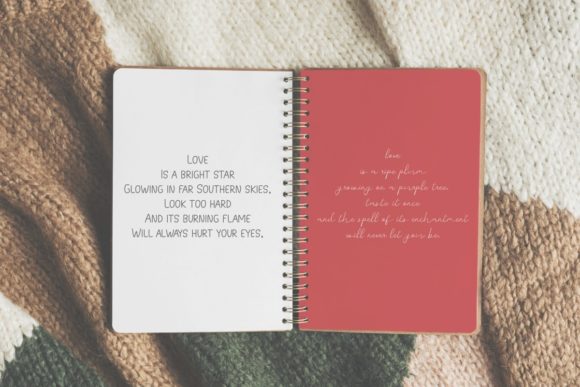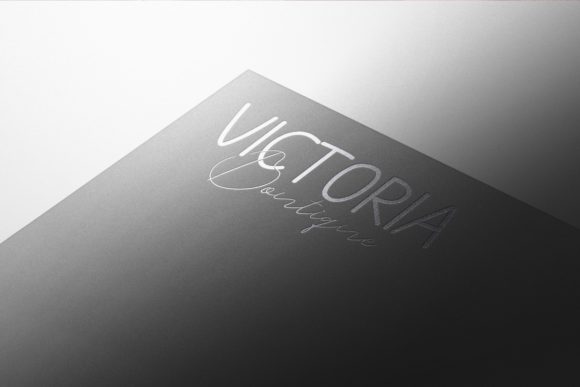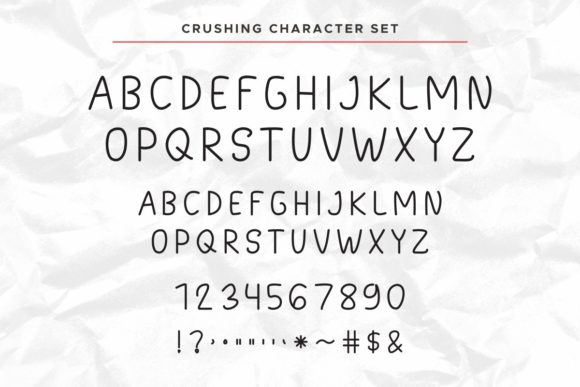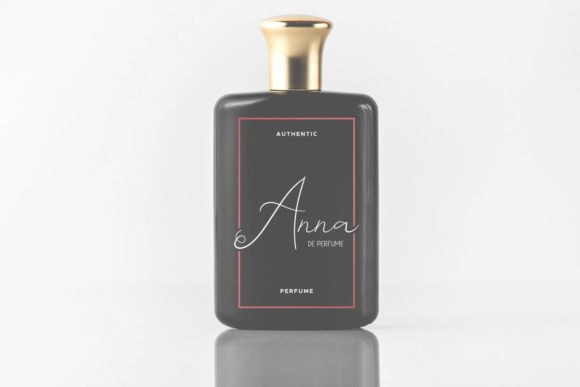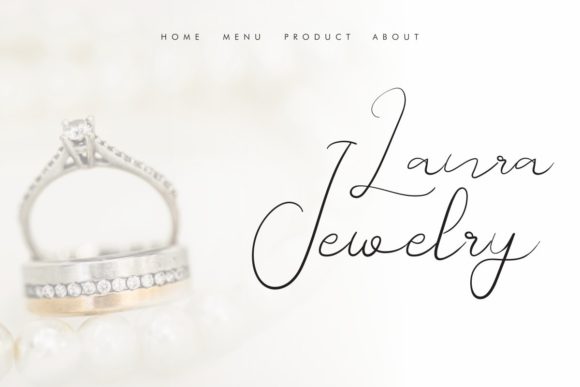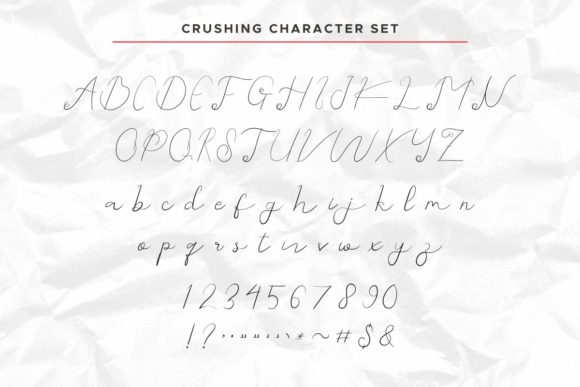
Introducing Crushing Duo Font: Elevate Your Crafts with Chic and Cheery Typography
Are you a designer or crafter looking for the perfect font to add a touch of elegance and playfulness to your projects? Look no further than the Crushing Duo Font. This versatile font combination consists of two carefully crafted fonts designed to complement each other perfectly, making it an ideal choice for a wide range of creative endeavors.
The Perfect Pair: Understanding the Crushing Duo Font
The Crushing Duo Font is not just a single font, but a thoughtfully paired combination of two distinct fonts. Each font in the duo is designed to stand on its own, yet together, they create a harmonious and visually appealing typographic experience. Whether you’re working on a logo, a greeting card, a DIY craft project, or any other creative venture, this duo offers the flexibility and style you need.
Characteristics of the Crushing Duo Font
- Complementary Design: The two fonts in the Crushing Duo are specifically designed to work well together, offering a seamless integration that enhances your project’s aesthetic.
- Chic and Cheery: The fonts boast a chic and modern look with a cheerful vibe, making them perfect for projects that require a touch of elegance and positivity.
- Versatility: From digital designs to handmade crafts, the Crushing Duo Font can be used across various mediums, ensuring consistency and style in your work.
- Easy to Read: Despite their stylish appearance, the fonts remain clear and easy to read, which is crucial for conveying your message effectively.
Using the Crushing Duo Font in Your Projects
The applications of the Crushing Duo Font are endless. Here are a few ideas to get you started:
- DIY Crafts: Add a professional touch to your handmade crafts, such as journals, cards, and decorations, with these stylish fonts.
- Digital Design: Use the Crushing Duo Font in your digital projects, including social media graphics, blog posts, and website designs, to give them a unique and appealing look.
- Branding and Logo Design: Create memorable logos and brand identities with the distinctive and attractive style of the Crushing Duo.
Tips for Maximizing the Impact of the Crushing Duo Font
To get the most out of the Crushing Duo Font, consider the following tips:
- Mix and Match: Experiment with different combinations of the two fonts to find the perfect balance for your project.
- Play with Sizes: Varying the font sizes can add depth and interest to your designs.
- Color Matters: Choose colors that complement the chic and cheery vibe of the fonts to enhance their impact.
The Crushing Duo Font is a powerful tool for designers and crafters looking to elevate their projects with high-quality typography. Its unique combination of chic and cheery styles, versatility, and readability make it an excellent choice for a wide range of applications. By incorporating the Crushing Duo Font into your creative process, you can add a touch of sophistication and playfulness that sets your work apart.